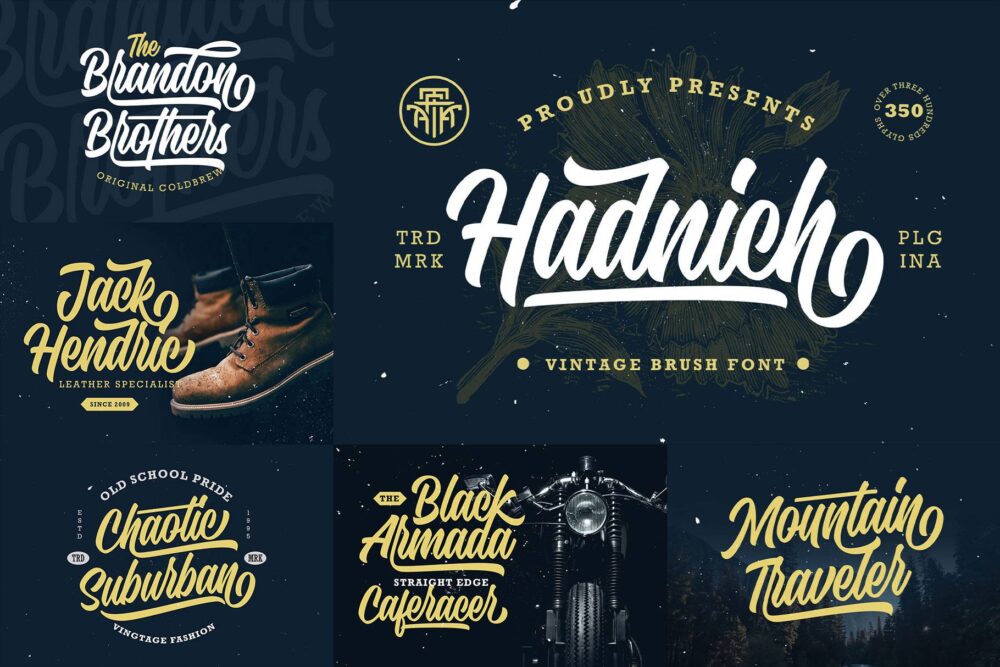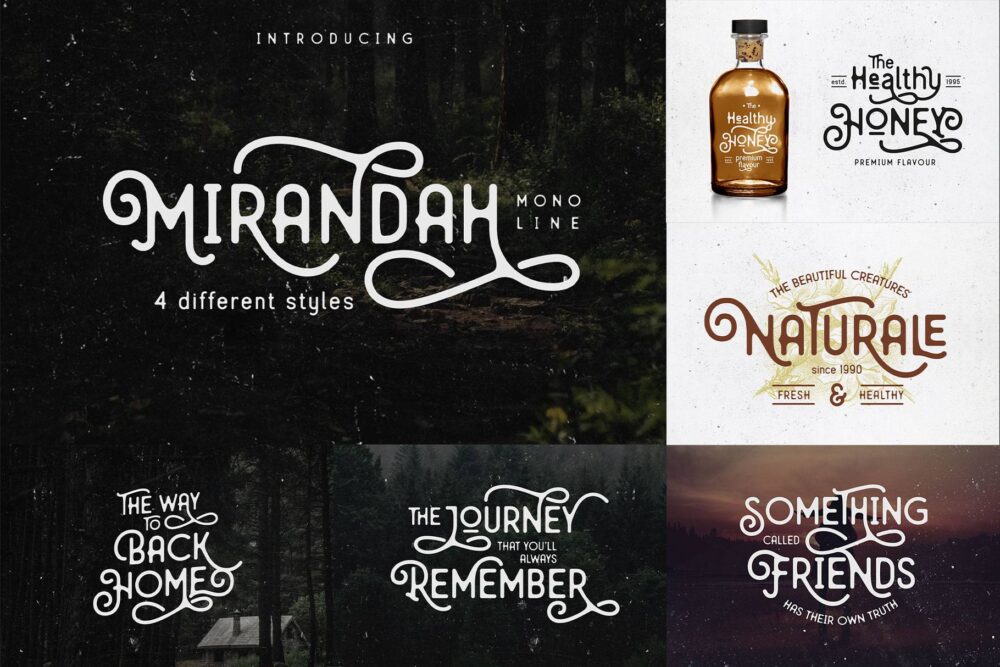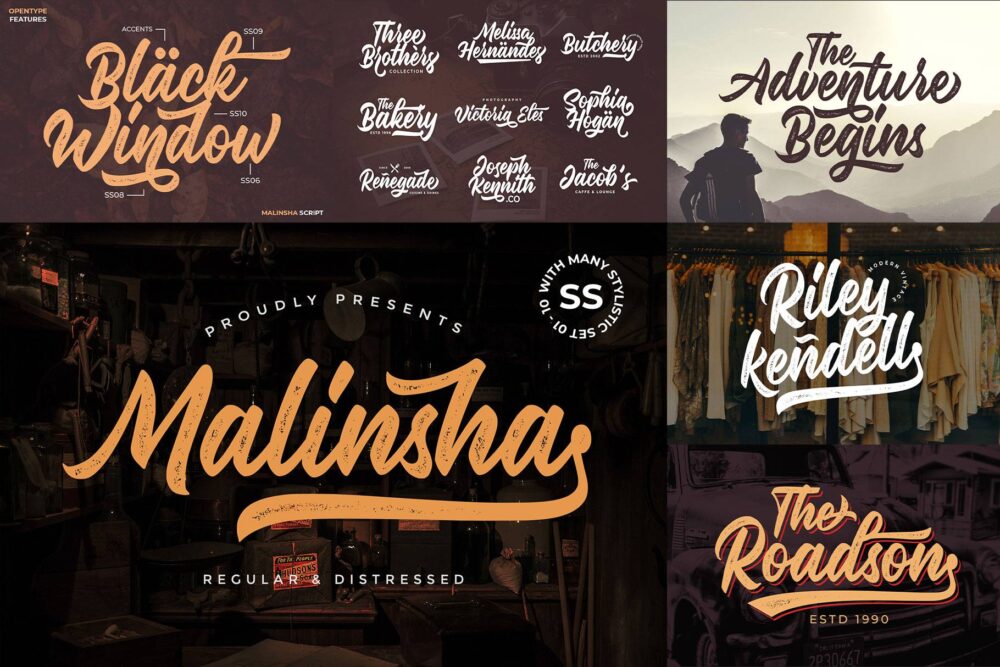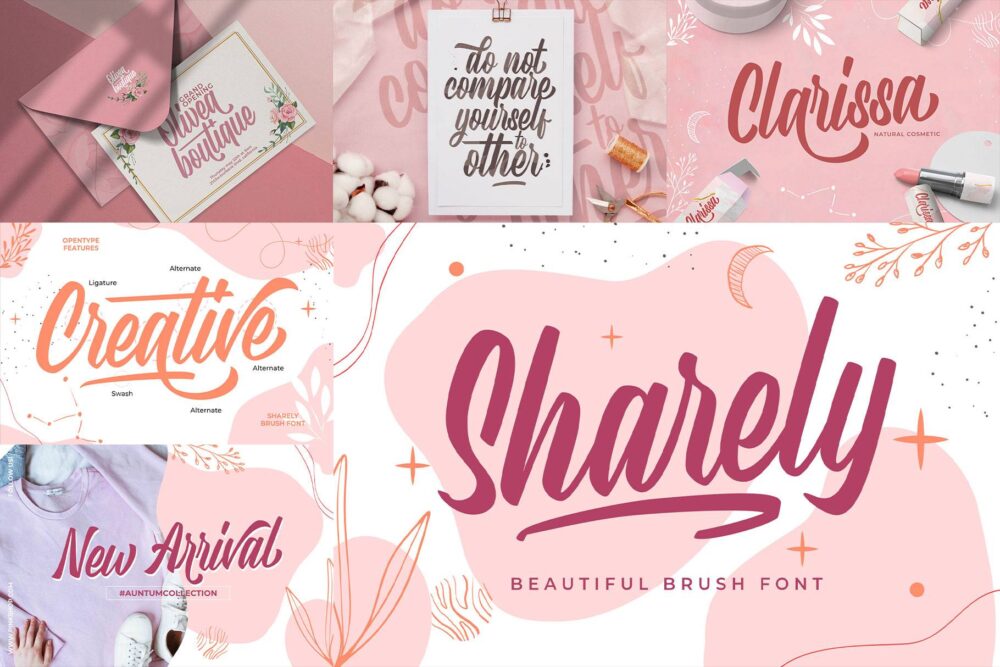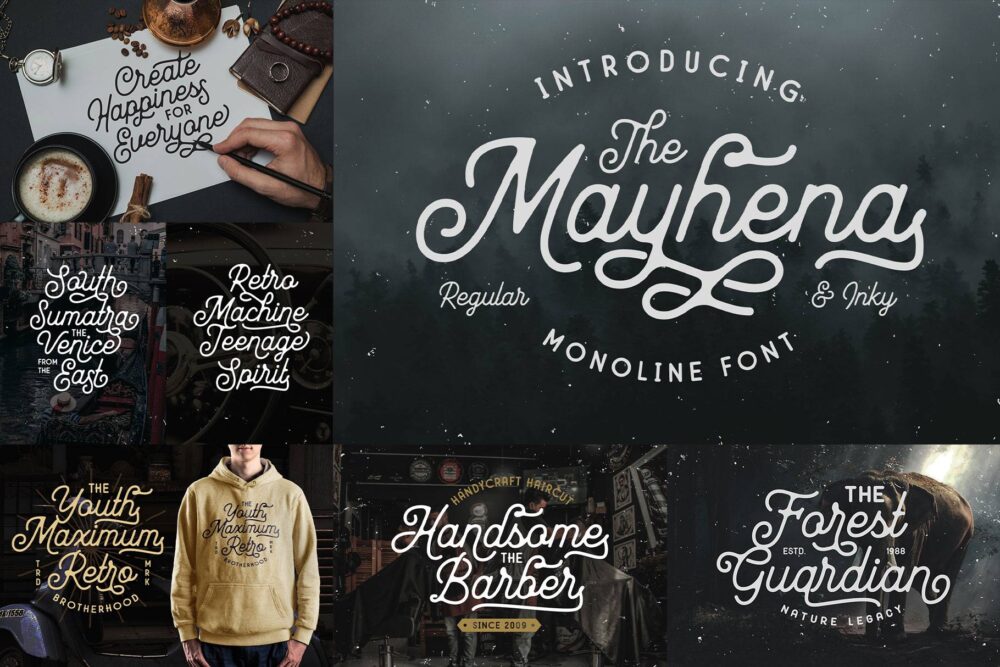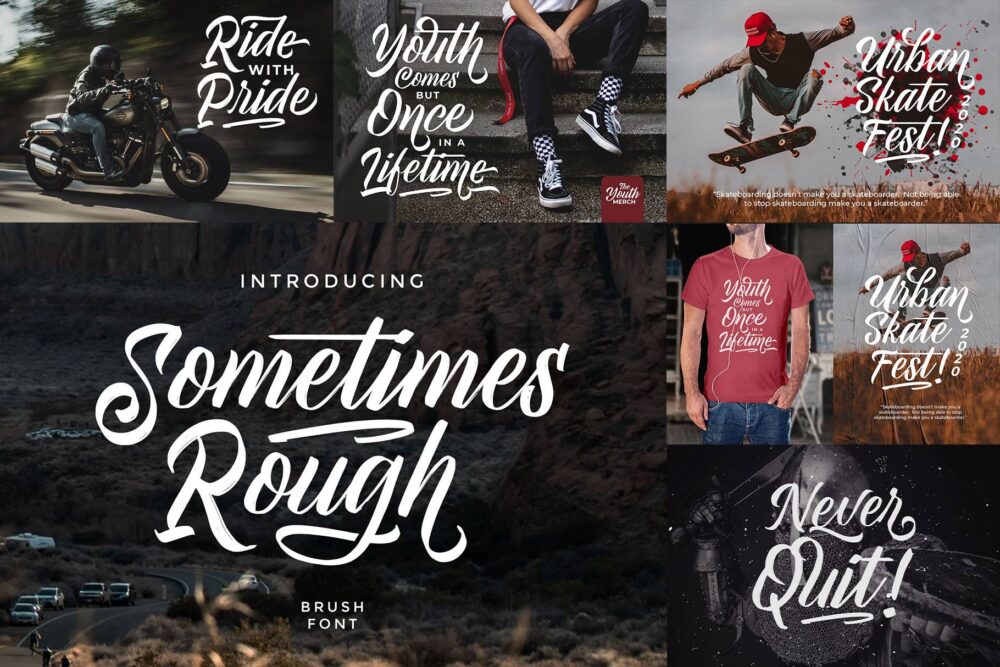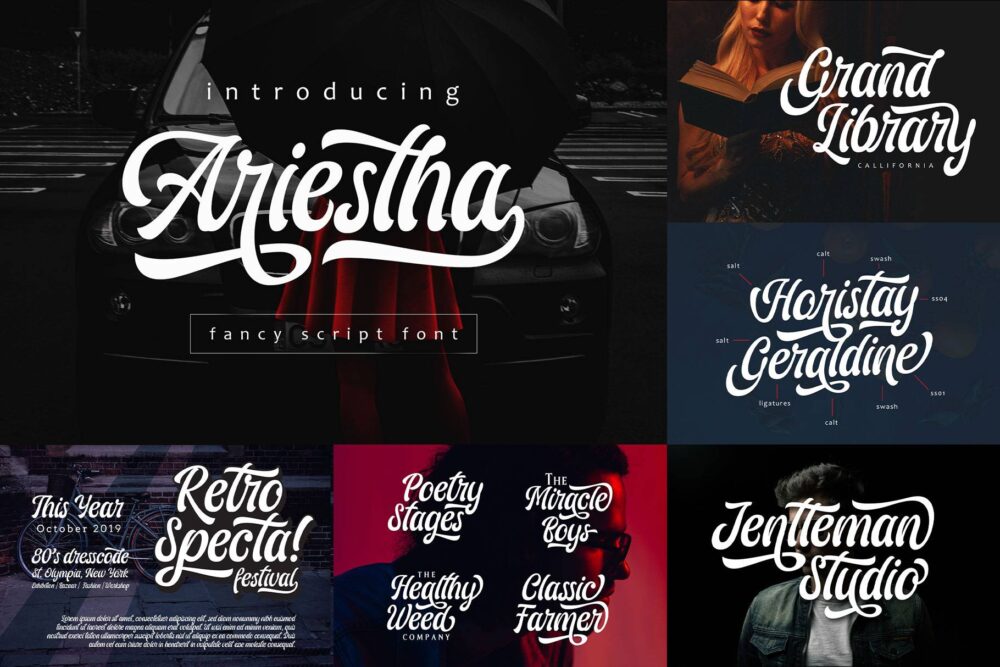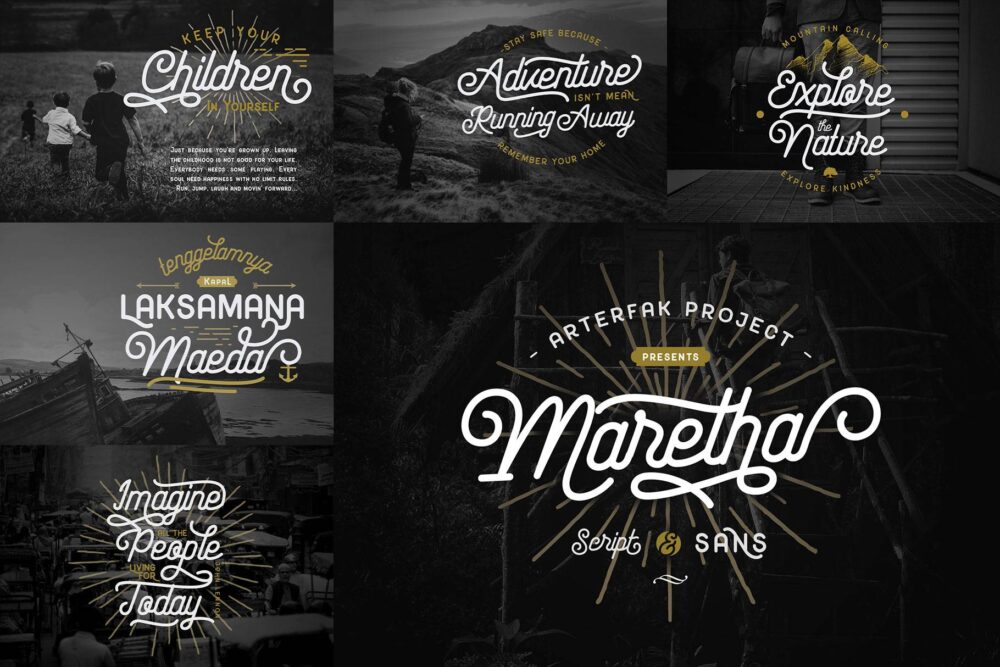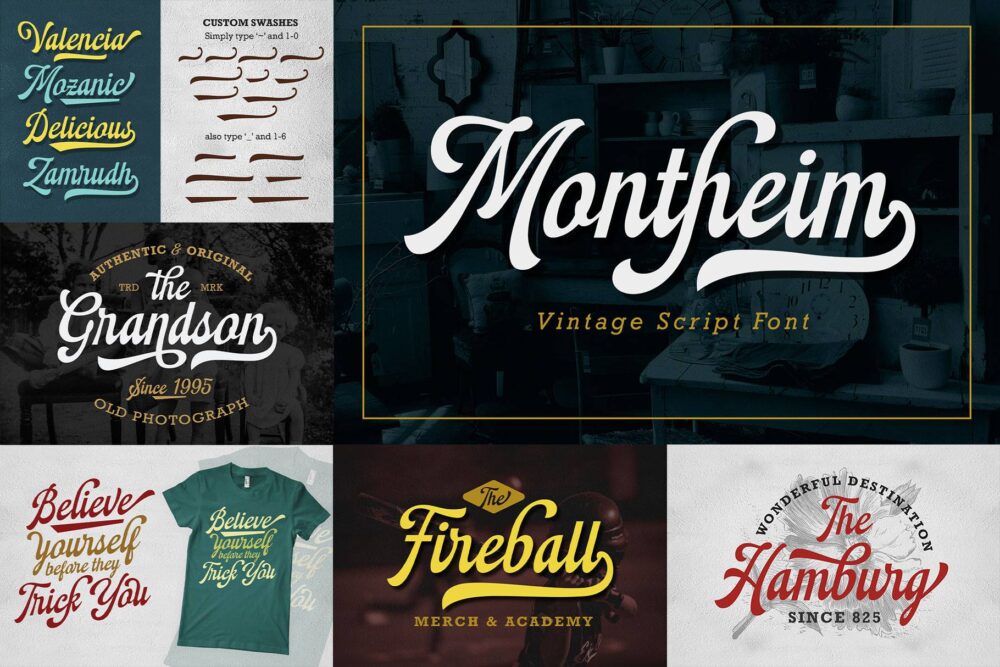
Ariestha
Hadnich
Hargalia
Malinsha Regular
Malinsha Distressed
Maretha Script
Maretha Sans
Mayhena Regular
Mayhena Inky
Mirandah Regular
Mirandah Bold
Mirandah Extrude
Montheim
Sharely
Sometimes Rough
Introducing “Vintage Script & Brush Font Bundle” a collection of impressive vintage fonts with various styles such as Monoline, Brush, and Bold Script. Some fonts are hand-crafted manually which gives a natural touch that is beautiful for your design project. Get it for only $25 from the $148 value.
You can use these fonts for many purposes, especially for vintage or old-school themes. You can apply the font for the logo, logotype, merchandise, flyers, labels, decals, books, branding, packaging, store-front, and more!
Packed including the OpenType features such as stylistic alternates, stylistic sets, ligatures, and multilingual characters.
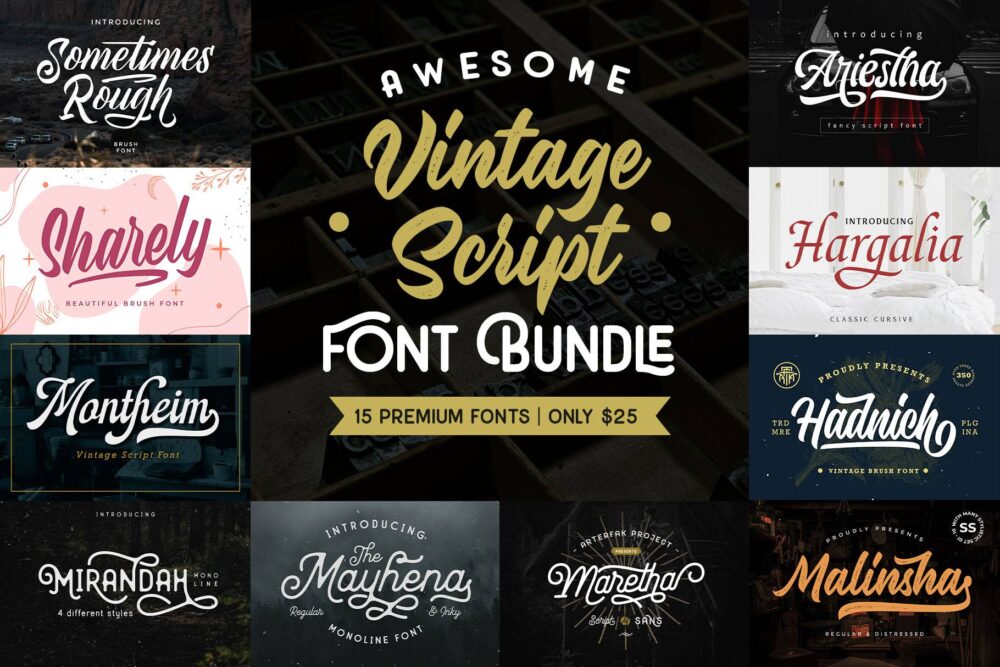
Awesome Vintage Script & Brush Font Bundle